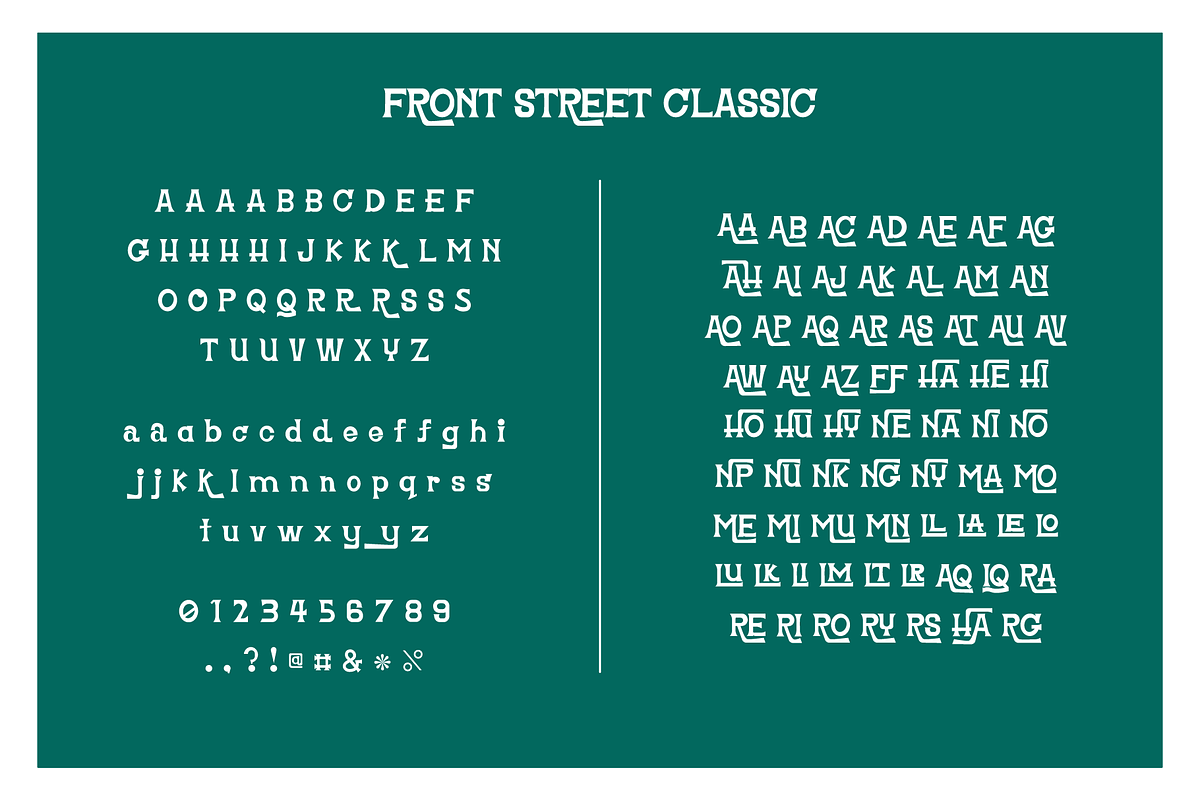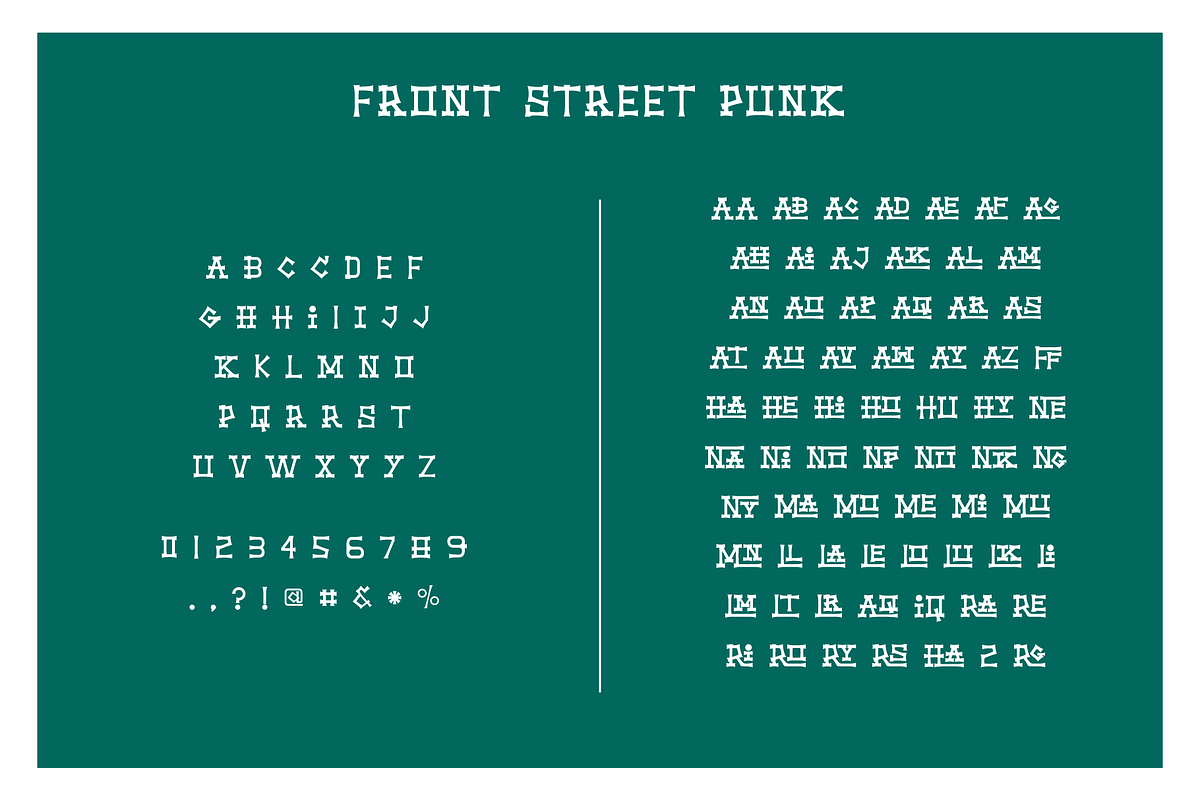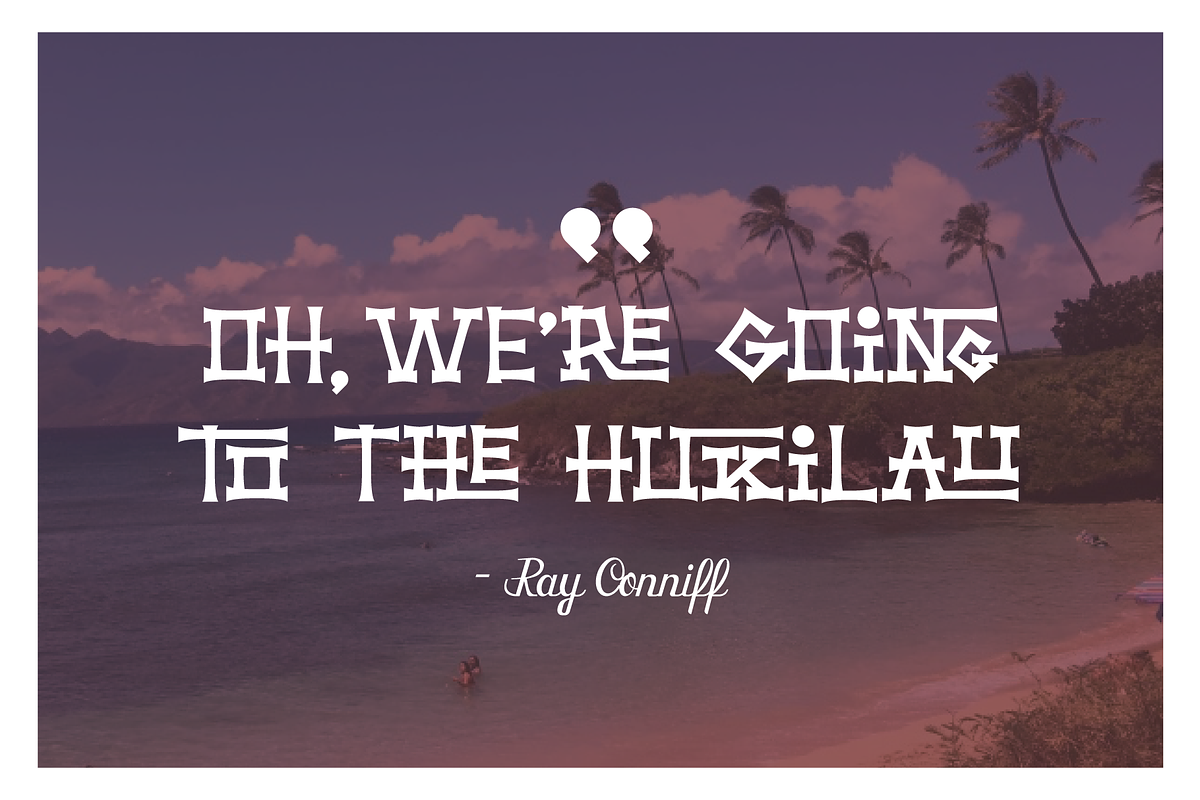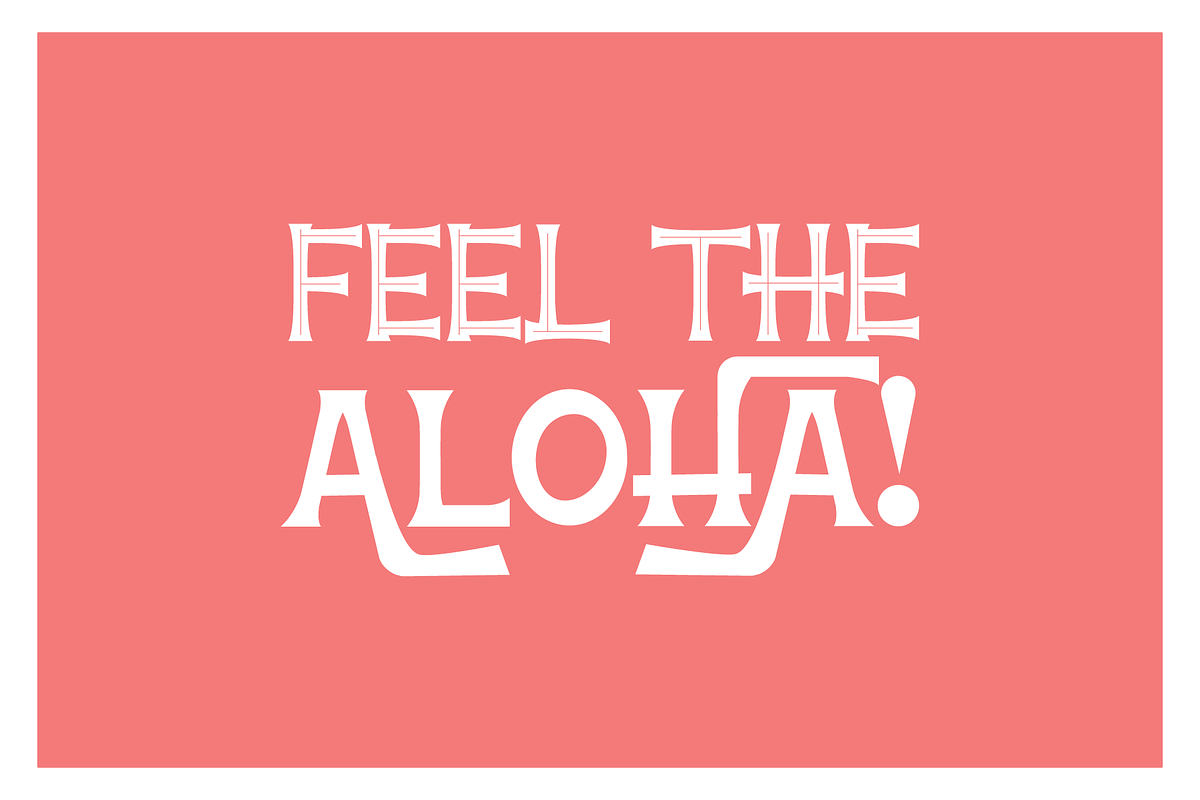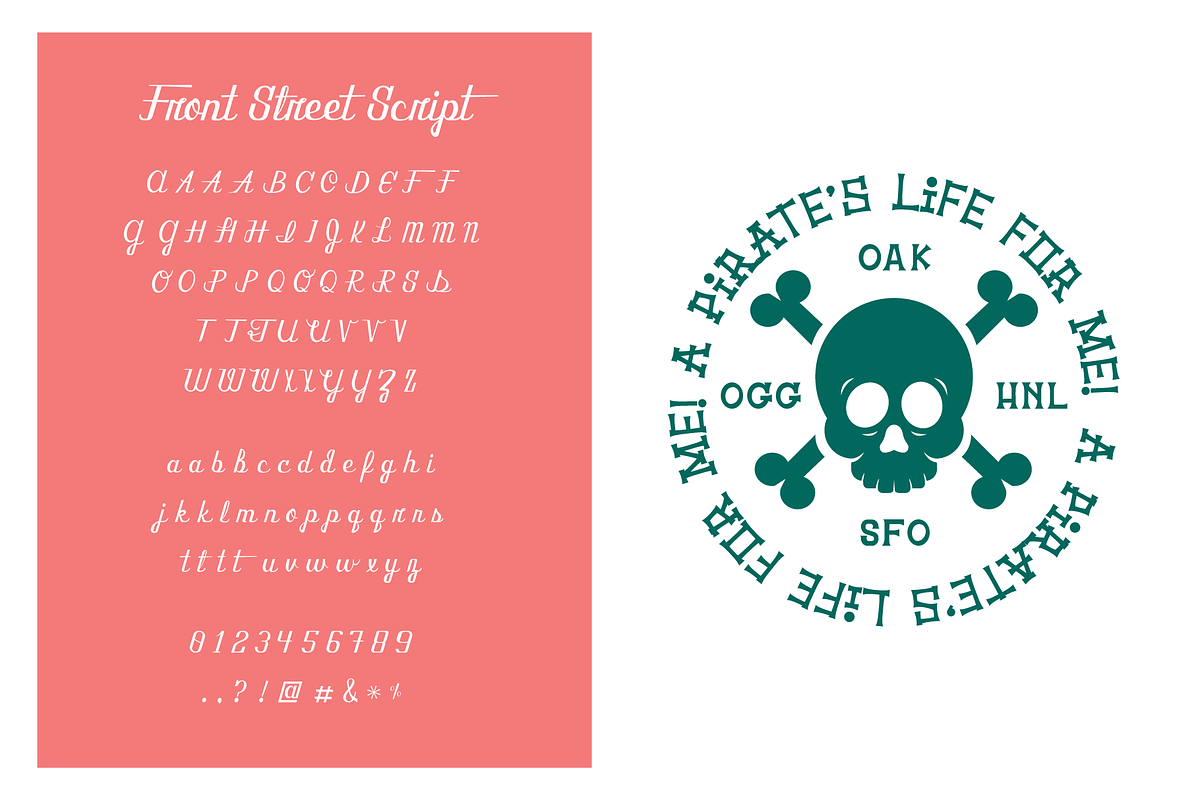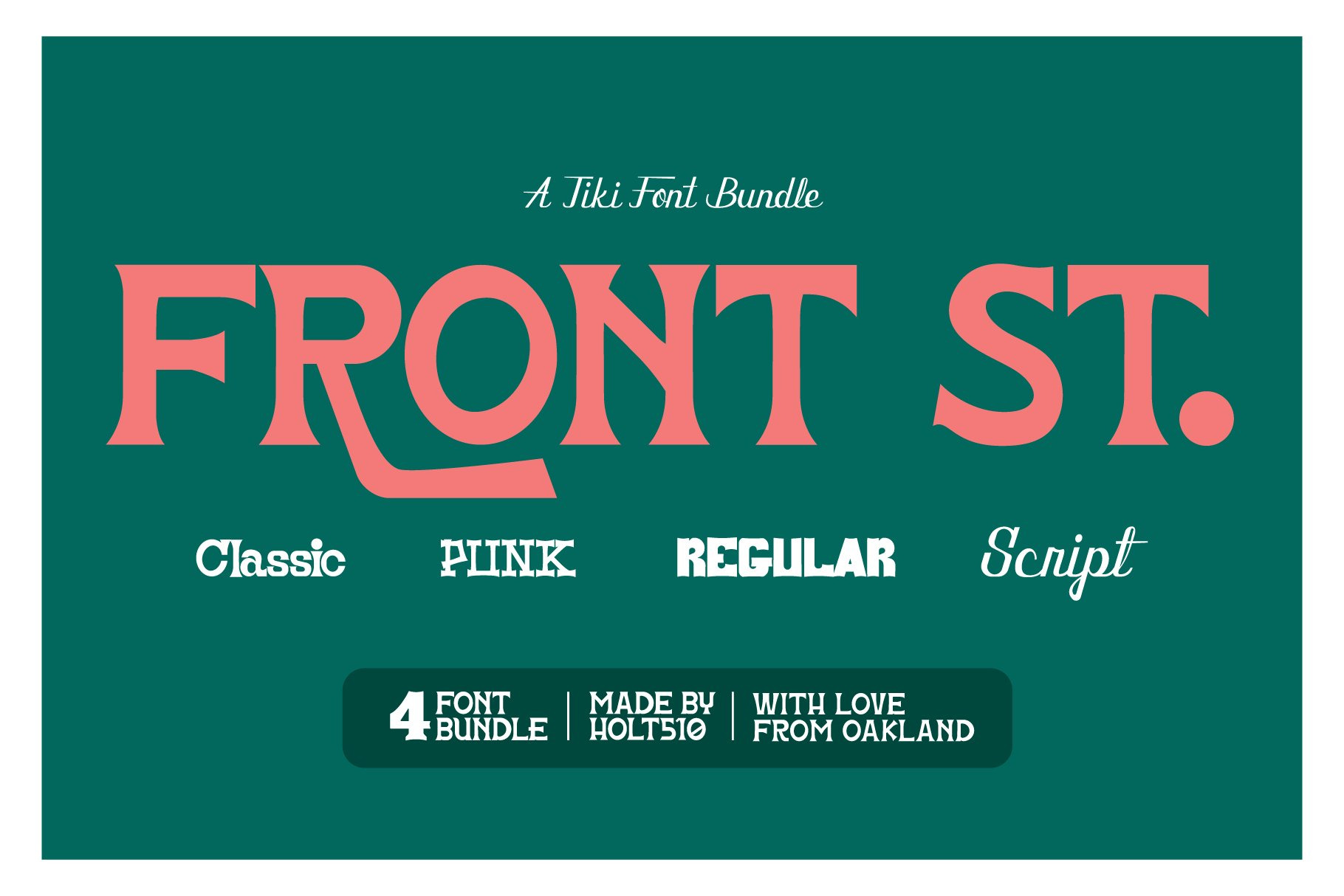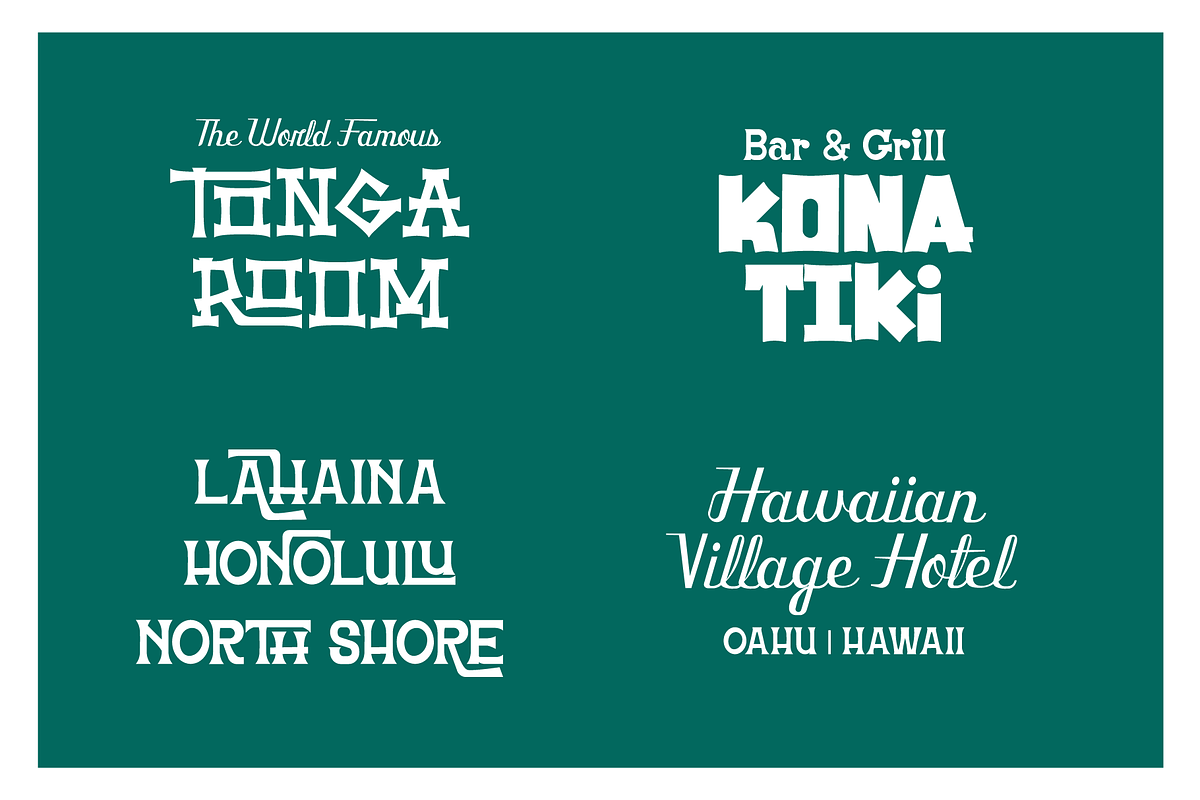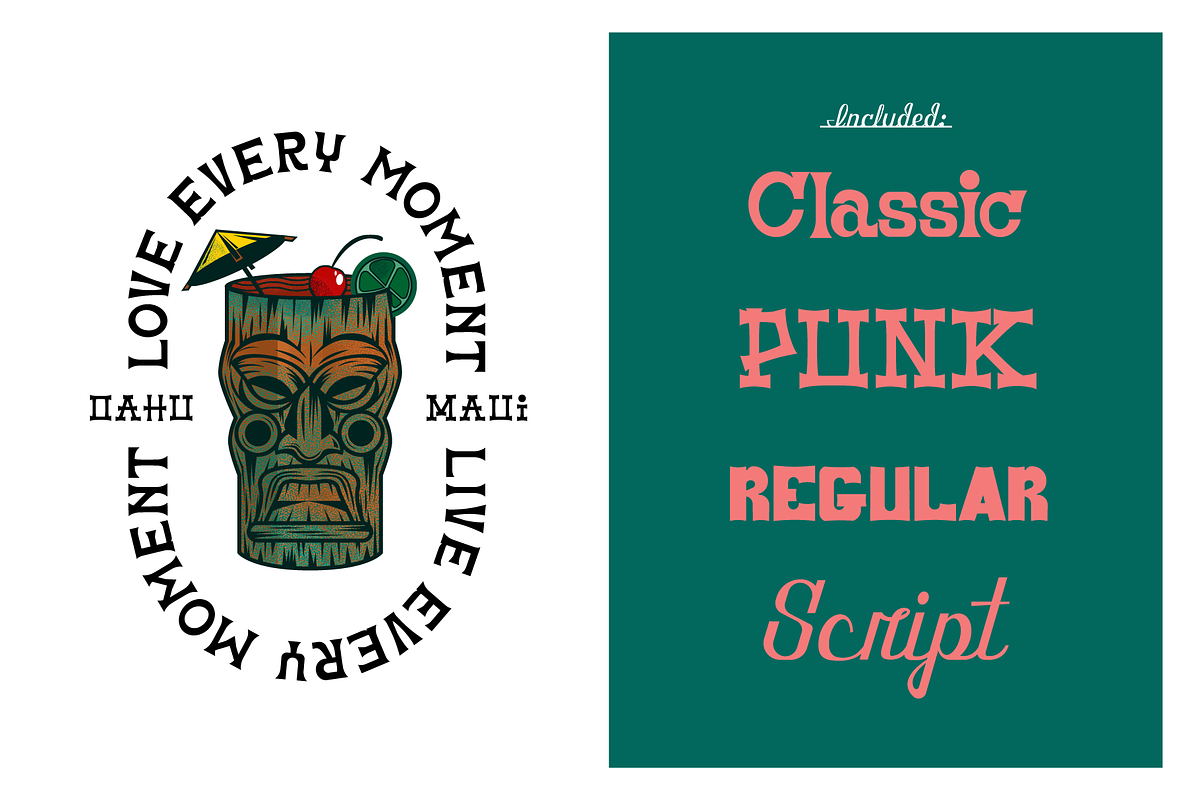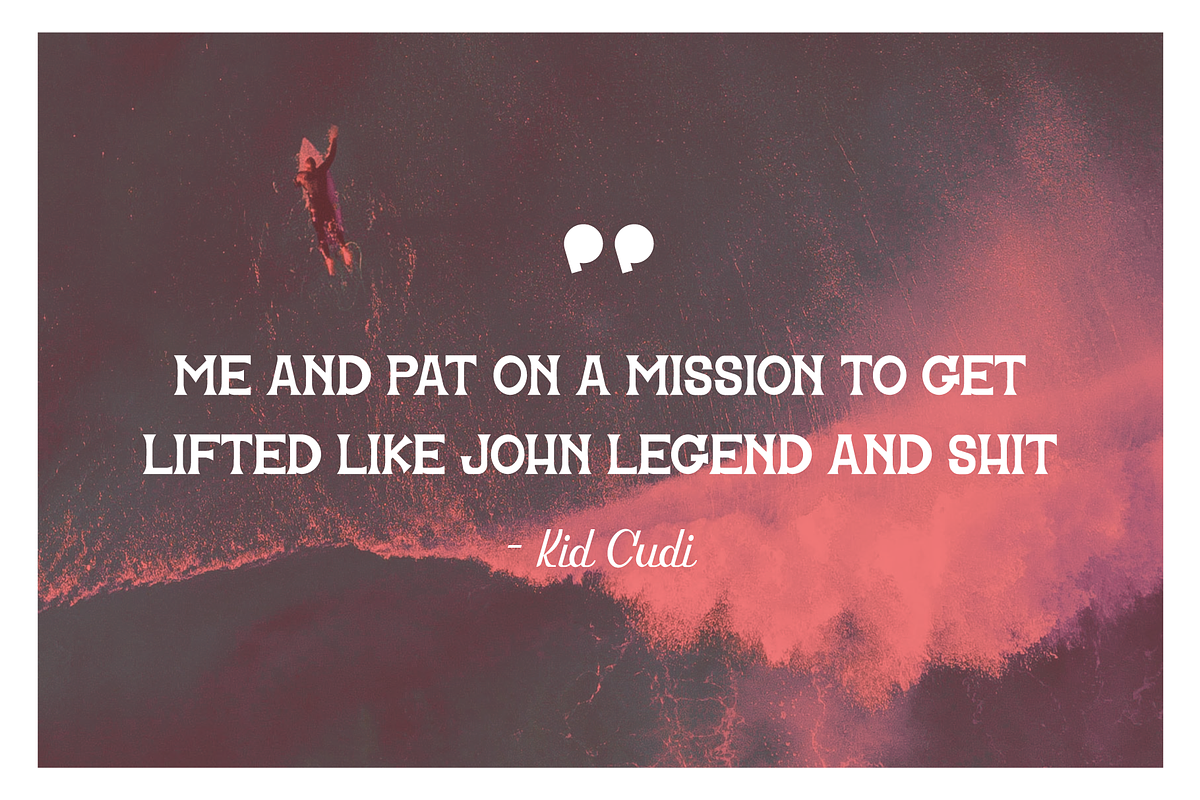
Front St. Tiki Display Font Bundle
Front Street is an homage to retro Tiki Bar matchbooks of the 50s and 60s. A lot of my family have lived on the the Hawaiian Islands, and visiting them when I was young was definitely a highlight, growing up. Front Street includes a block cut font, a script font, a tiki serif, a pointed sans serif font.
The fonts include: Standard keyboard extras Full Alphabets 0-9 Numerals Alternates Multiple Ligatures in 3/4 fonts.
Regular is a block cut all-caps font with small caps with ligatures. Script is an upper-lowercase font with alternate characters. Punk is a graffiti slab serif with alternates and ligatures. Classic is a pointy sans serif font with multiple alternates and ligatures.
Also included is a micro-inline font for the Punk Font. Extra vector Tiki Drink and Skull and Crossbones Adobe Illustrator File included.